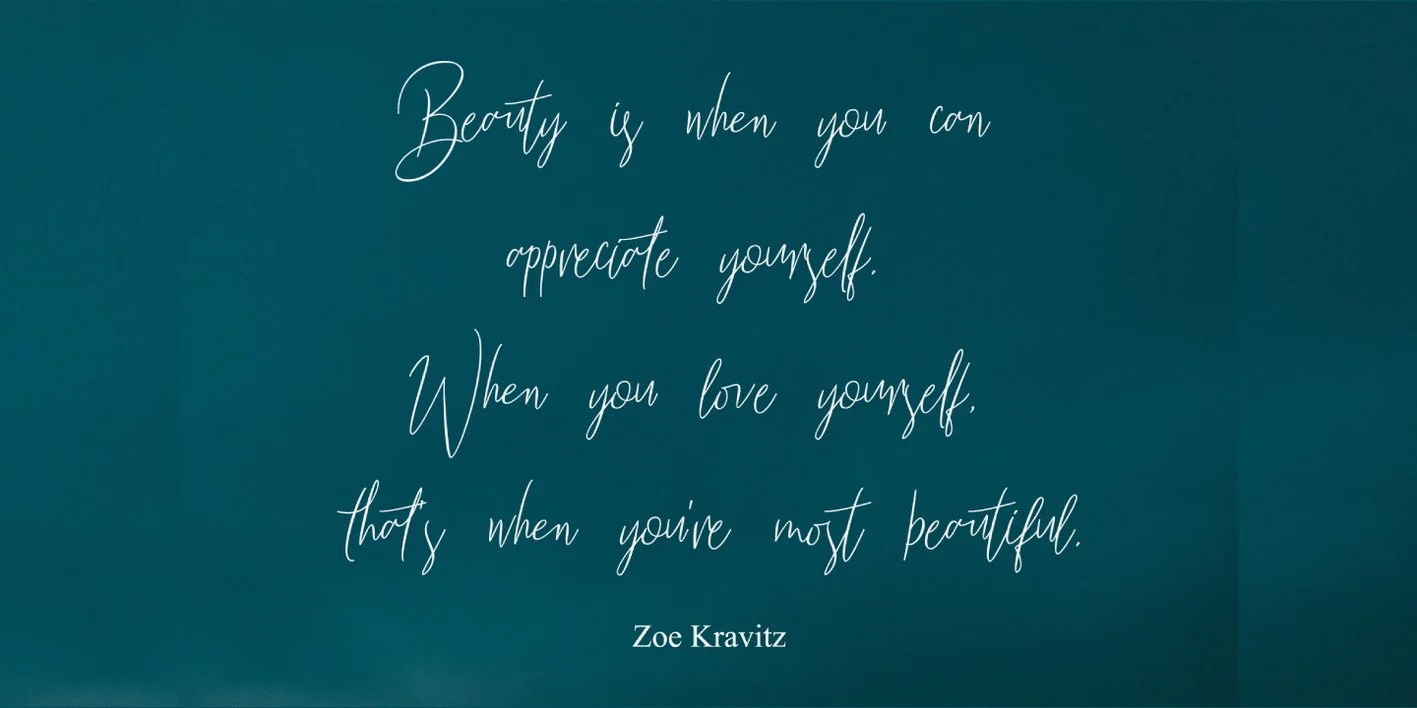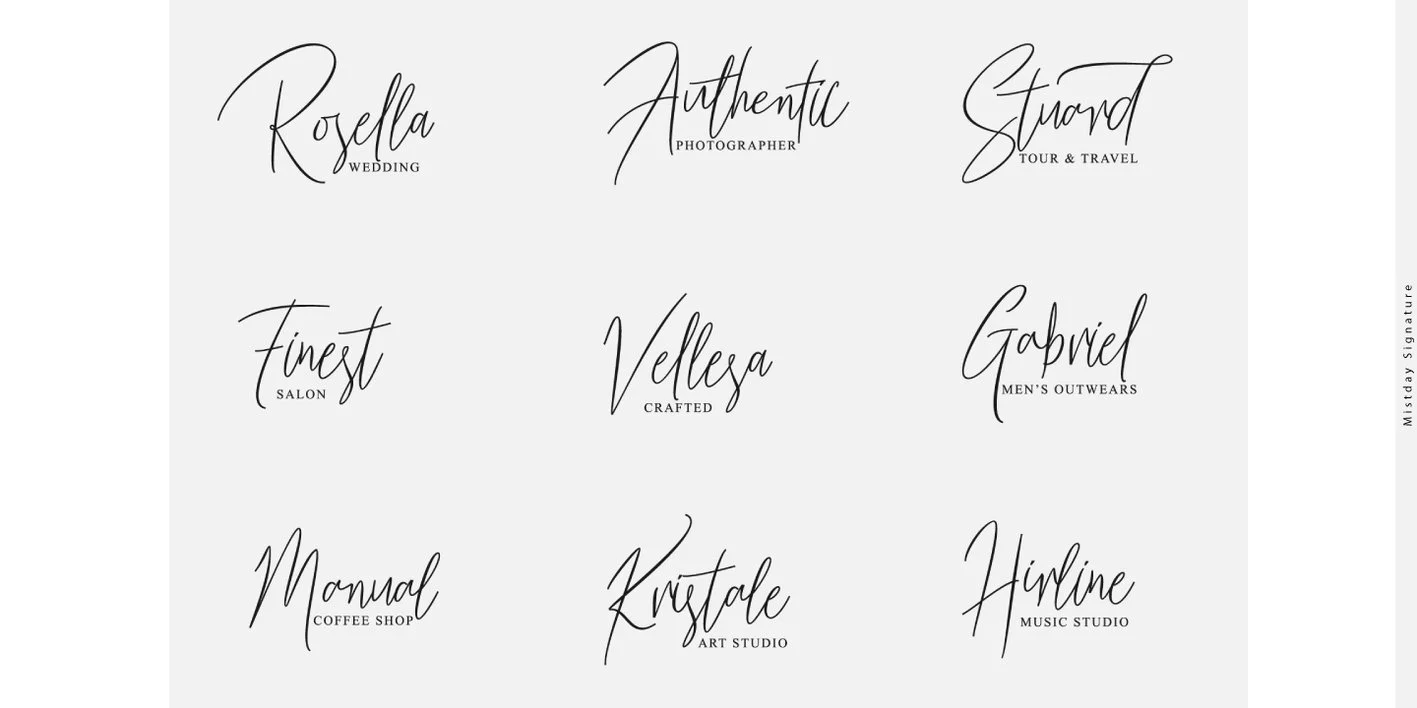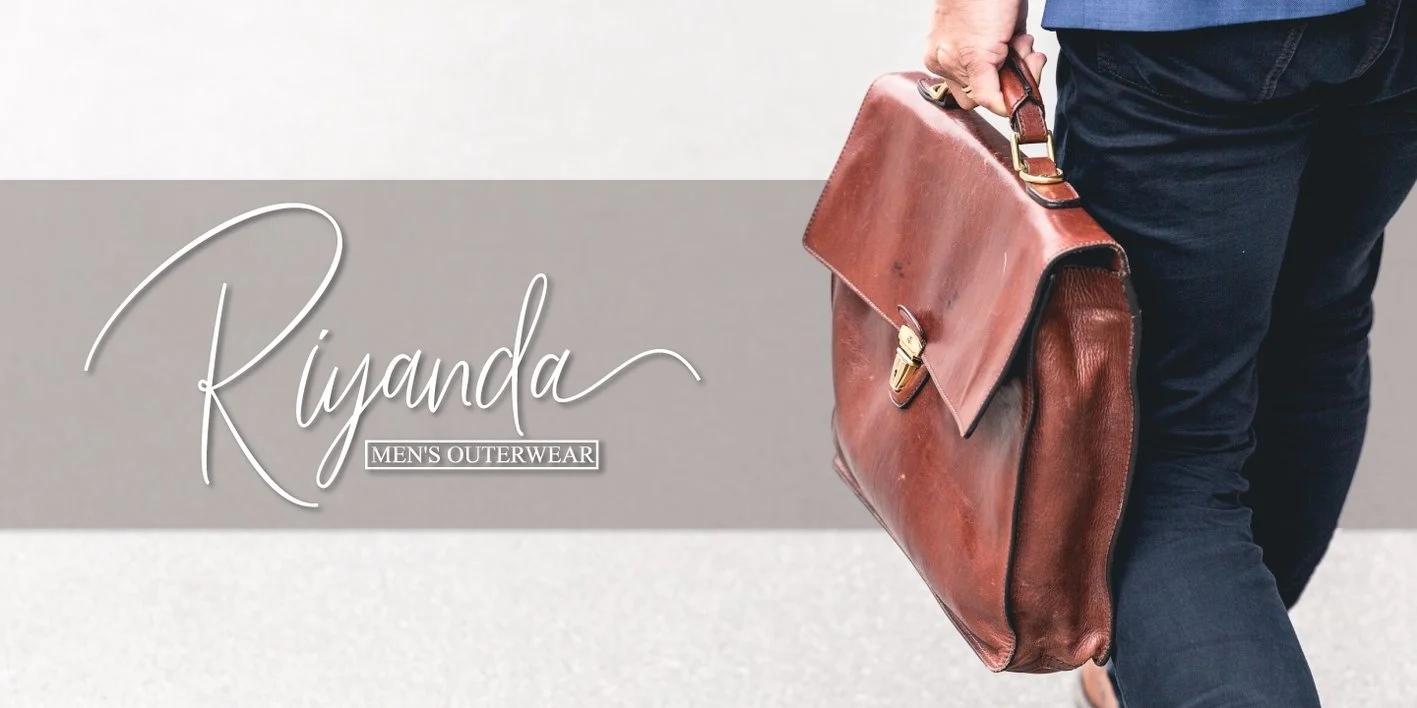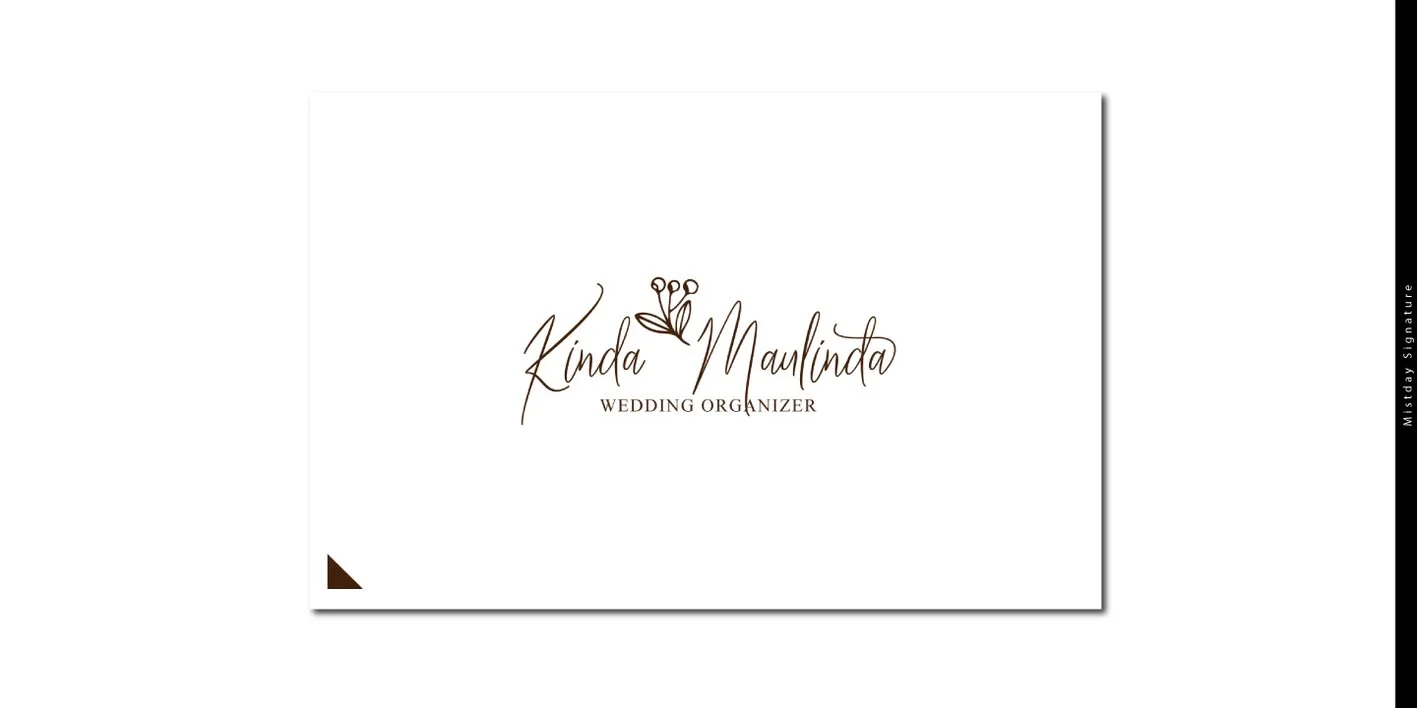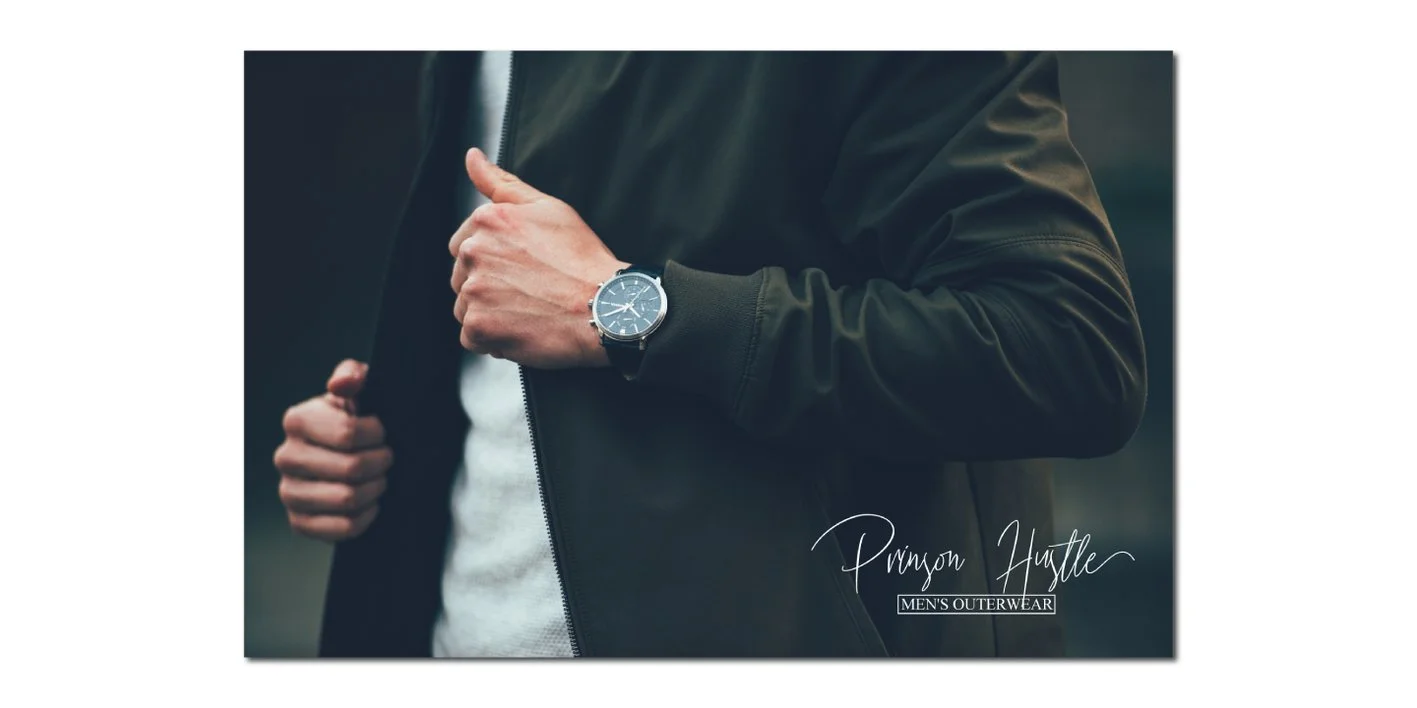
Mistday Script Font
Few typefaces manage to balance consistent type colour across continuous text with genuine day-to-day practicality. Mistday Script is one of them. The typeface brings an elegant, calligraphic sensibility to a broad range of creative disciplines, with controlled contrast that rewards close inspection that holds up whether the work is print-first or screen-first.
In practice, Mistday Script proves particularly effective for event signage, editorial layouts, greeting cards, perfume labels, beauty packaging. Designers reaching for it find that the type decisions feel resolved rather than laboured — a useful quality when client timelines are tight.
The range of applications extends to boutique logos, logo design, luxury stationery, fashion editorials. That breadth is deliberate: the proportions and spacing were stress-tested across a wide range of mock briefs before the typeface was finalised.
Pairing Mistday Script with a contrasting serif or a neutral grotesque gives mixed-format layouts a clear visual grammar without requiring constant size adjustments to establish hierarchy.
Independent studios handling packaging and editorial work find Mistday Script a reliable choice for projects that demand both personality and restraint. The design avoids the self-conscious quirkiness that dates quickly, settling instead for considered distinctiveness that holds up over time.